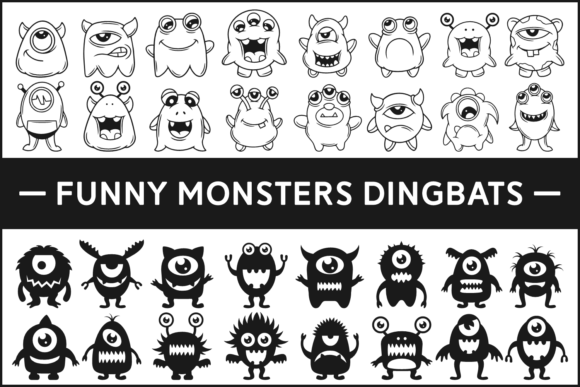
Are you looking for a playful and whimsical way to spice up your designs? Look no further than Funny Monsters Font! This dingbats font, created by Creative Fabrica Fonts, is perfect for adding a touch of cuteness to any project.
With its adorable little monsters, Funny Monsters Font is a great choice for designing for kids. Imagine the smiles on their faces when they see these charming characters on their t-shirts, mugs, books, stationery, or even on your website! But don't let its childlike charm fool you, this font is also versatile enough to use for a wide range of projects.
Whether you're creating something for a school project or a fun personal project, Funny Monsters Font is the perfect way to add a playful touch. The font is easy to use and install, and its eye-catching characters will surely make your designs stand out.
So why wait? Download Funny Monsters Font today and let your creativity run wild with these cute little monsters. With its unique design and versatile application, this font is sure to become a favorite in your font library.